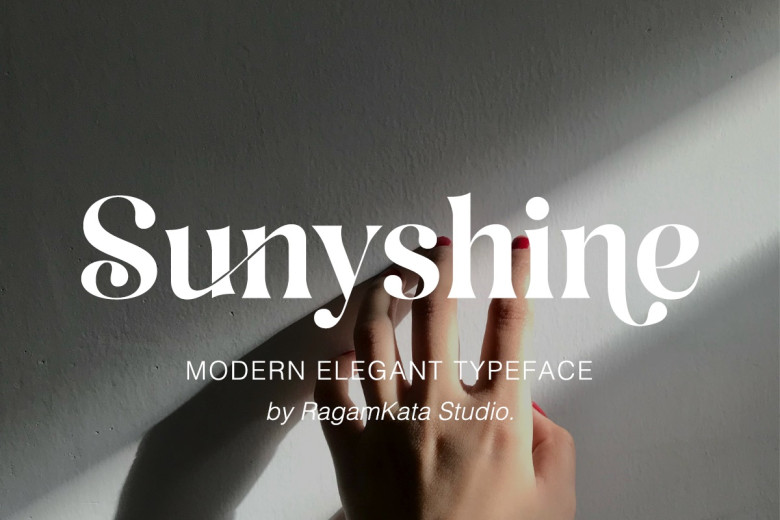
Sunyshine Font
Sunyshine is an elegant serif typeface with a sophisticated and refined font to complement your work. Featuring ideal proportions and ligatures, this typeface will make any design seem sophisticated – perfect for luxury logos, editorial layouts and fashion brand promotions! Use sunyshine for designs as refined as fine wines!
Sunyshine Serif Font